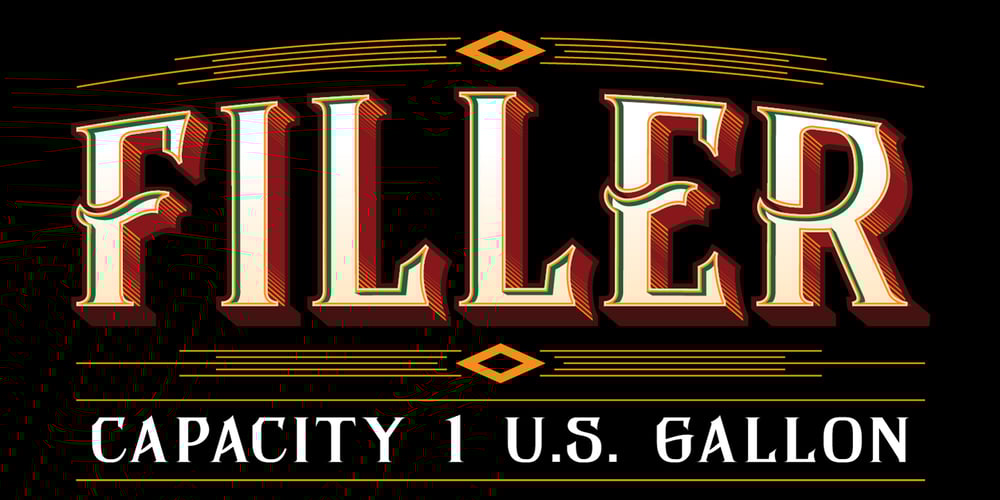
False Widow Font Family was designed by Nach Oh! and published by OhType!. False Widow contains 1 styles and family package options. False Widow is a display typeface, designed for graphic pieces looking for a great visual impact. Aggressive but measured in its proportions is easily adaptable to different uses and formats such as posters, headers; print and digital.